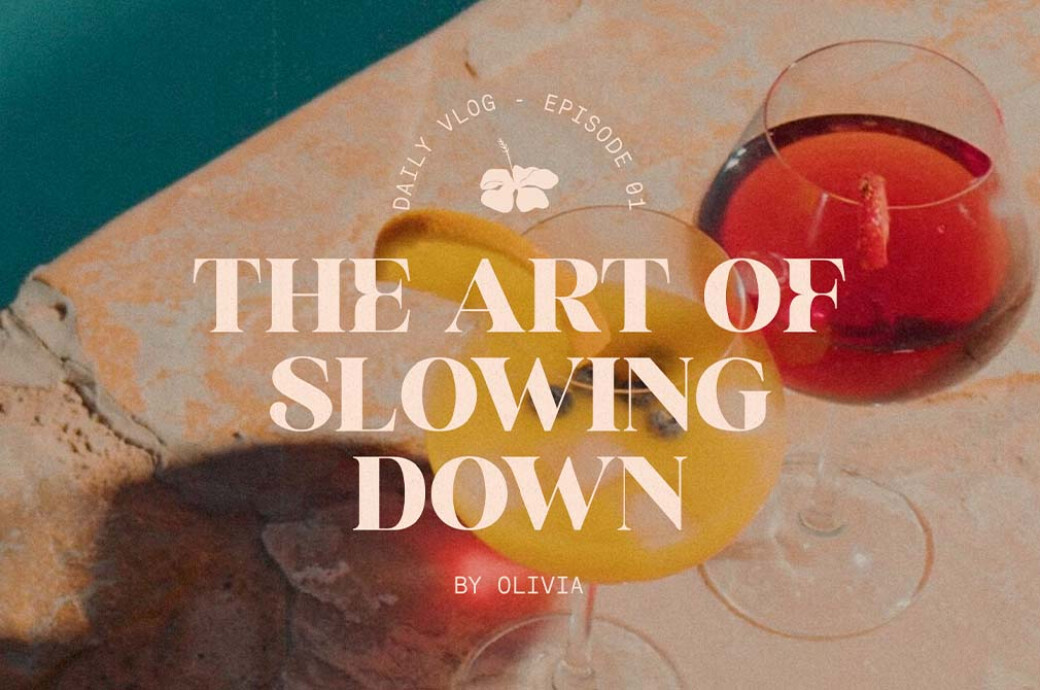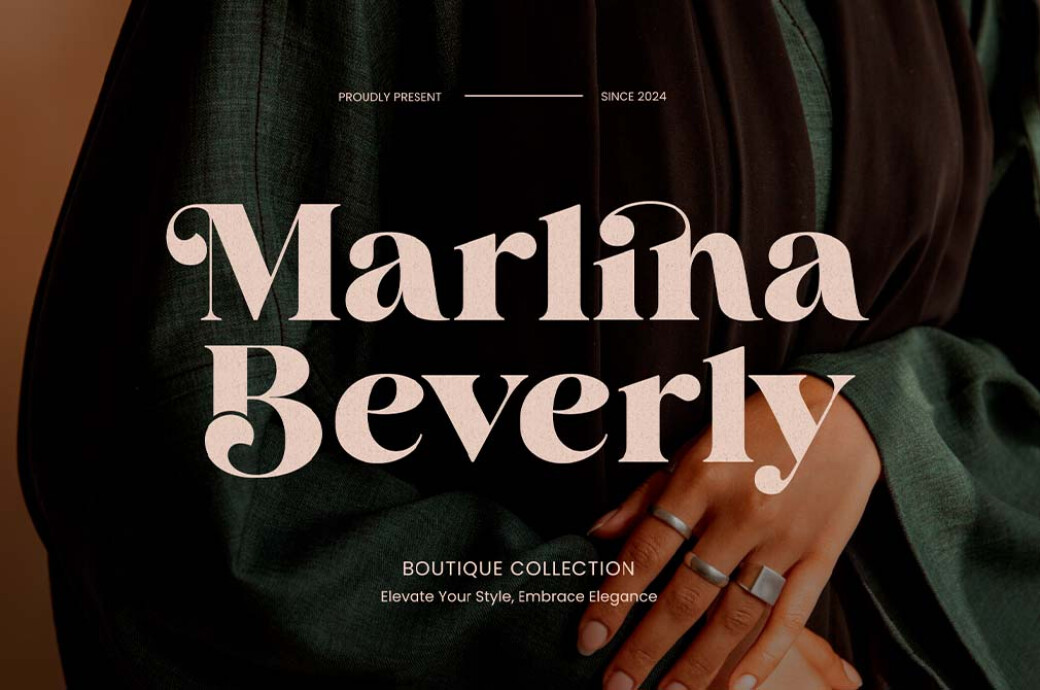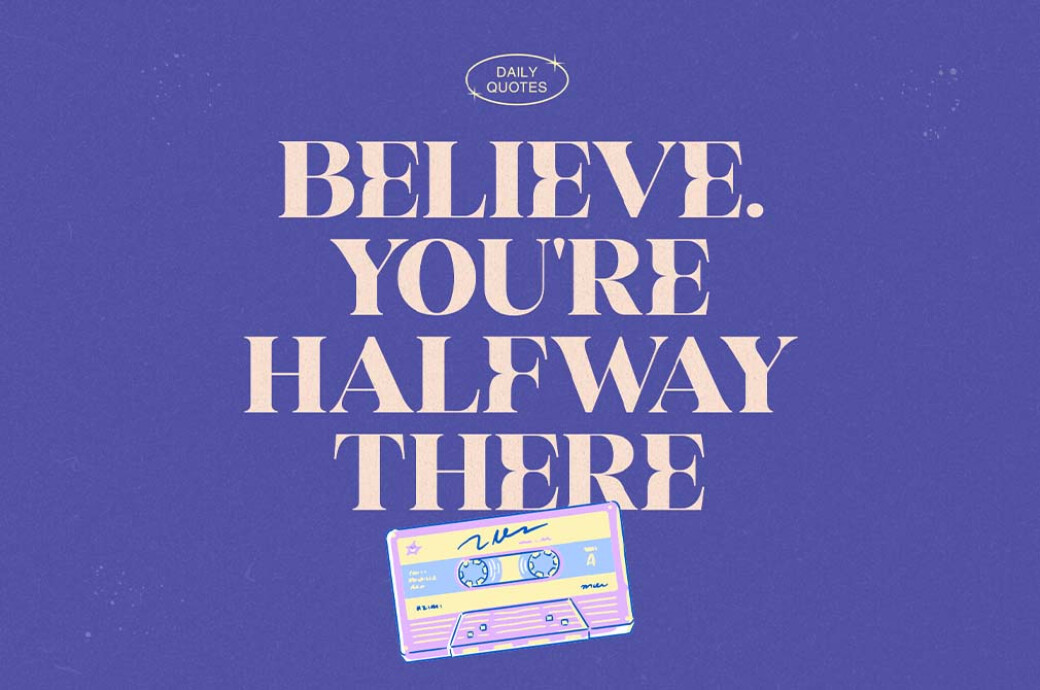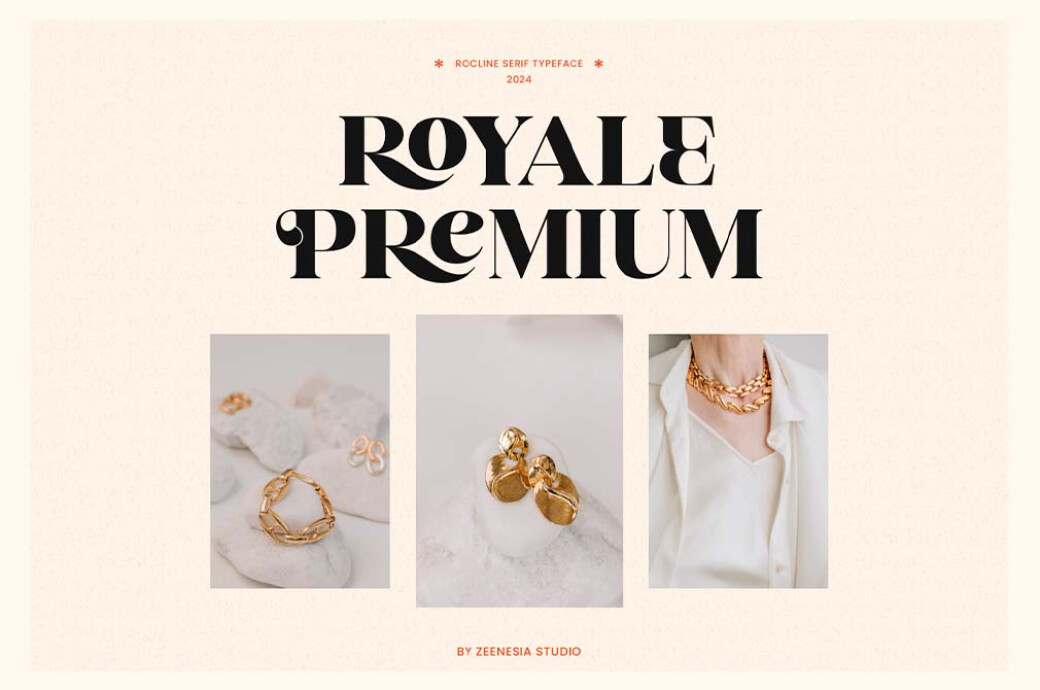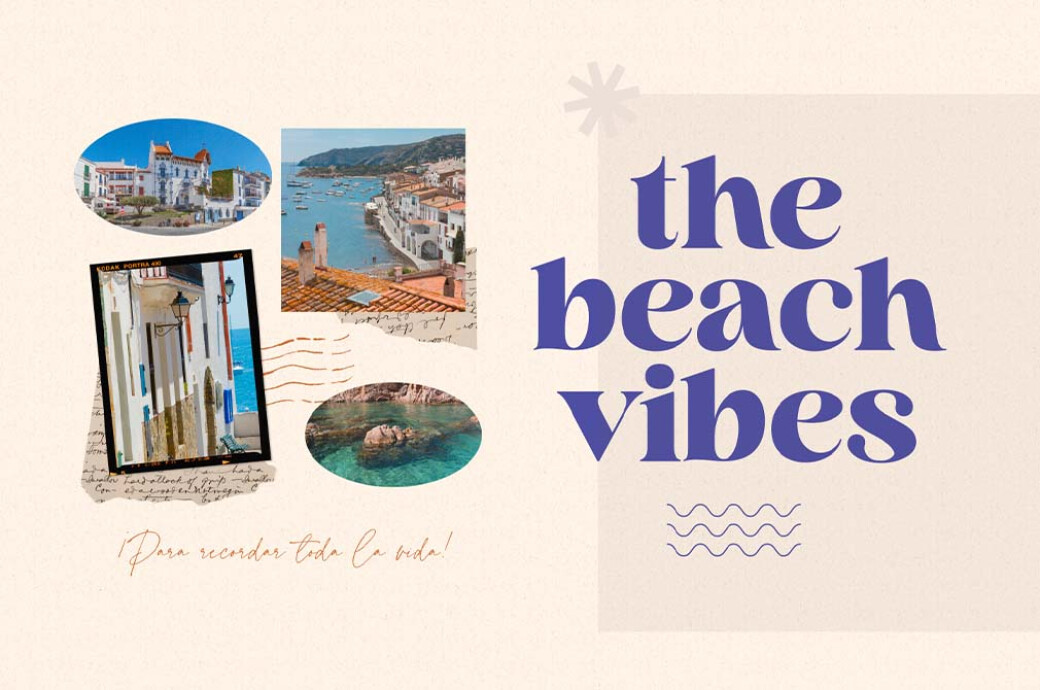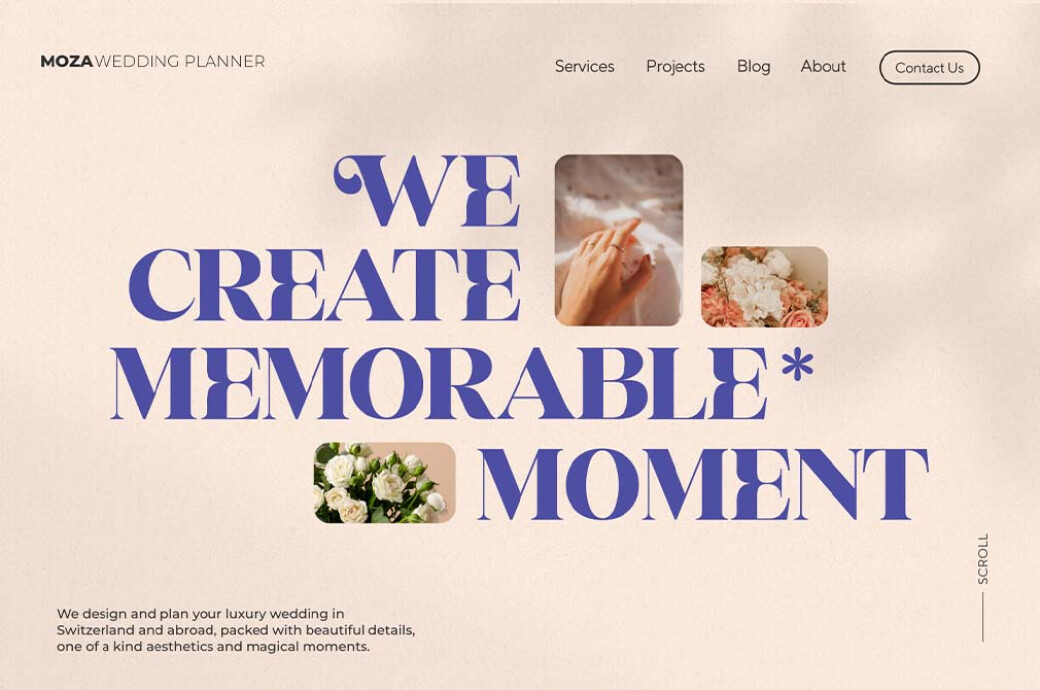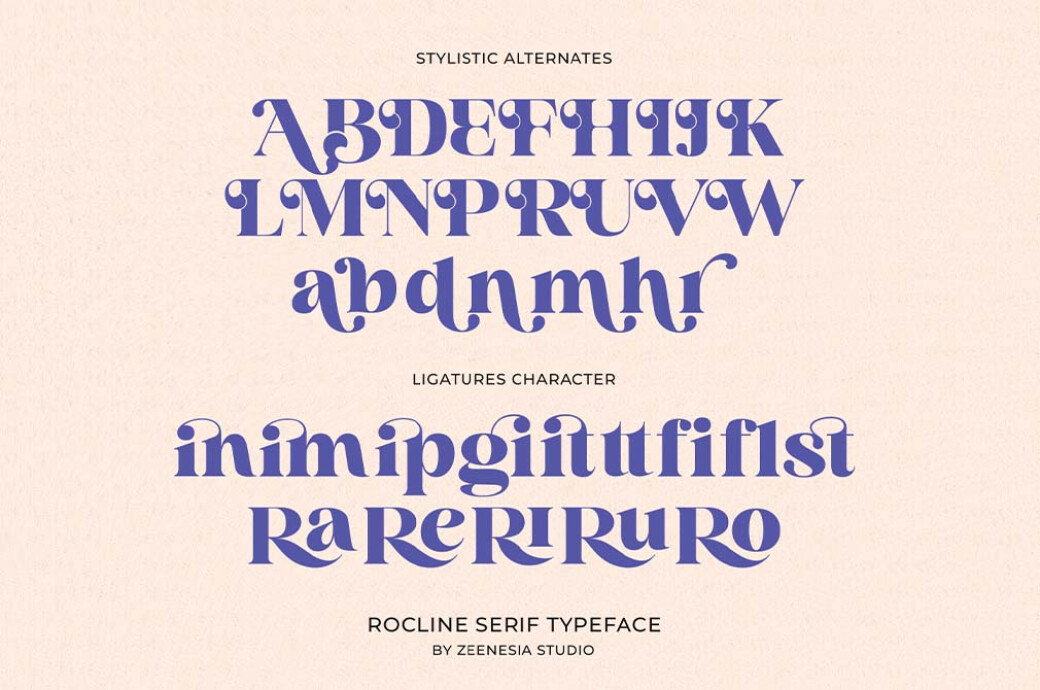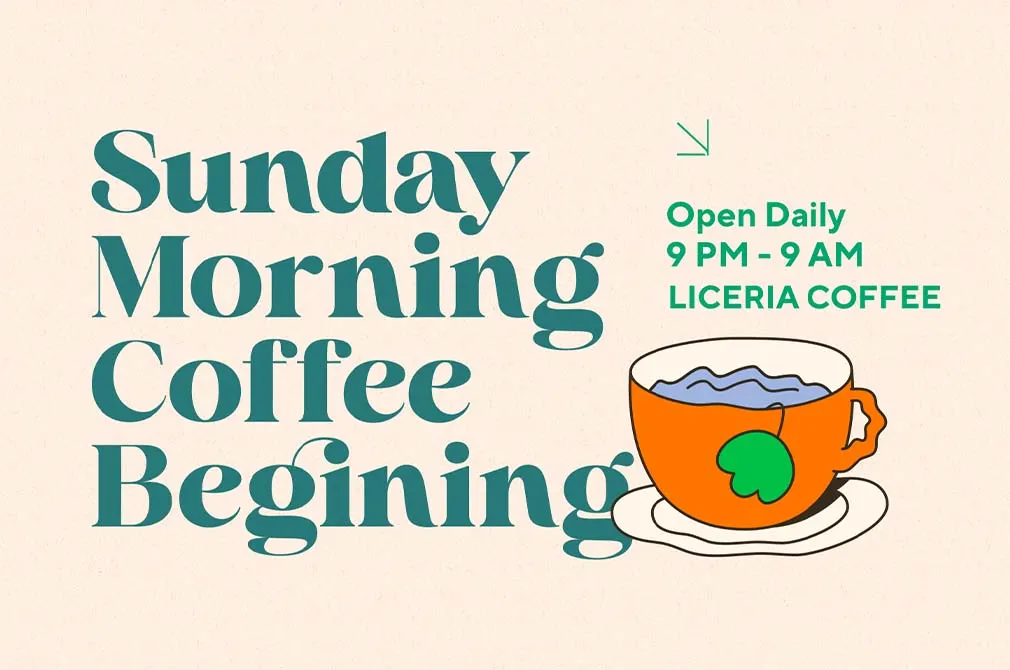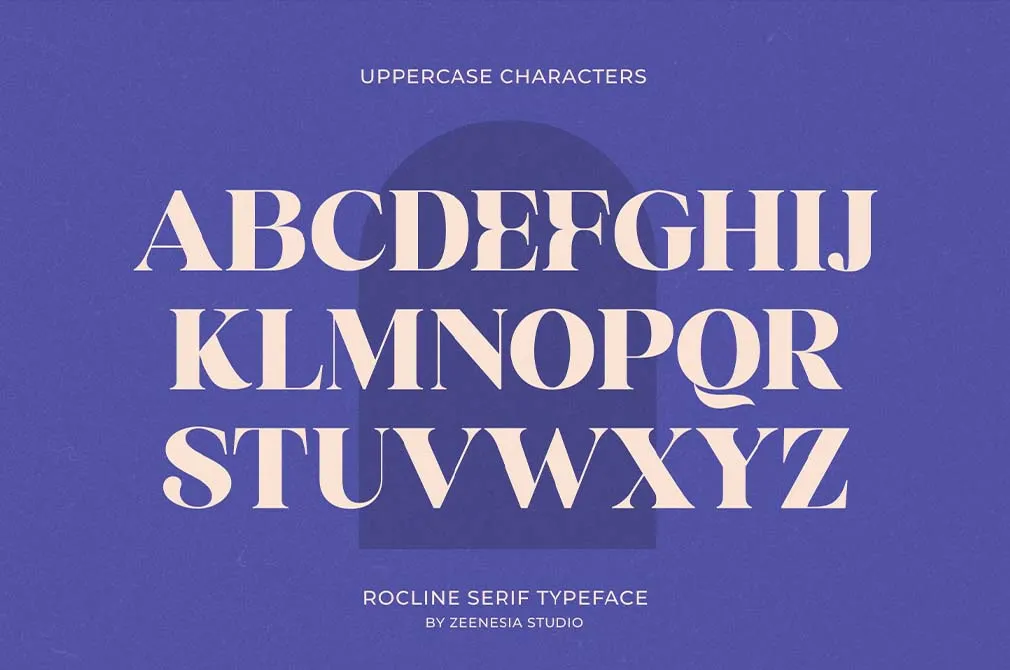
Rocline — Modern Serif
Some fonts are like workhorses: you can use them here and there. And some are like rare black diamonds: featuring them in a project is an occasion. Which type is Rocline? Guess, the answer is clear.
Elegant serifs, stems with a flair, and classic base shapes — the fanciness and elegance of these typefaces were driven to the max. Rocline is jam-packed with stylistic alternates and ligatures, all with twisted descenders and ascenders. They complement a full character set, ready to get featured in any creative projects, from posters and event promos to apparel, branding, and packaging concepts.